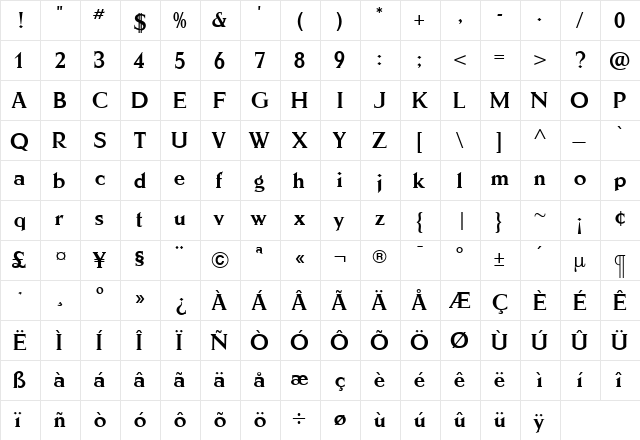
SchillerAntiquaExtraBold Medium
Design Context for SchillerAntiquaExtraBold Typeface
SchillerAntiquaExtraBold is a composed and adaptable typeface that performs quietly and consistently across a wide range of design contexts. The heavy weight commands attention and anchors typographic hierarchies.